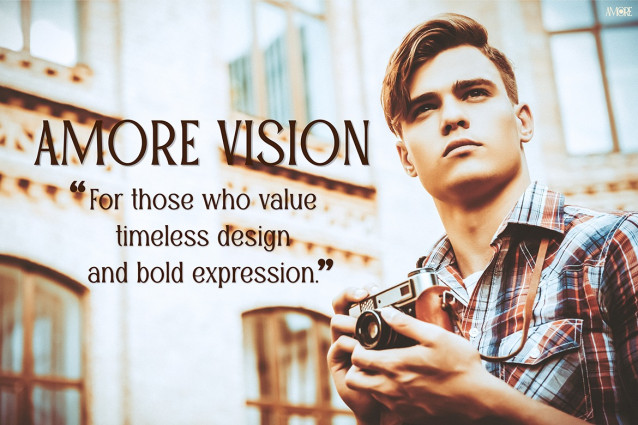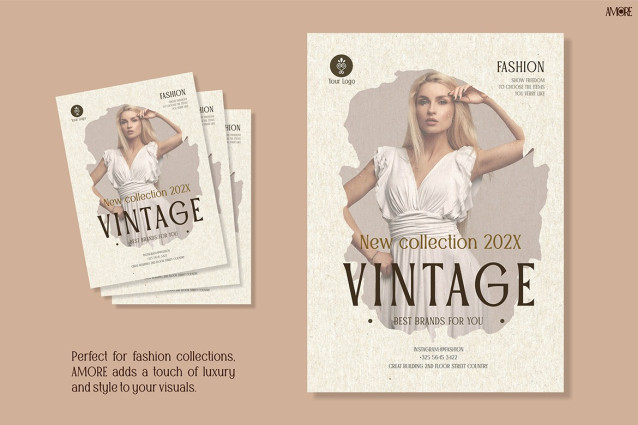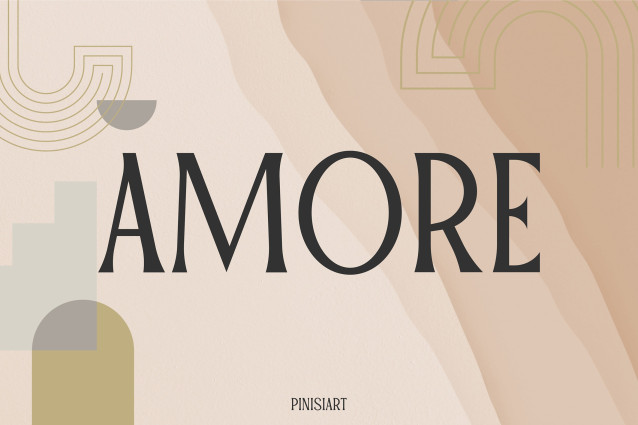
AMORE Font
Instagram Font Amore is a stunning serif typeface designed to captivate attention and exude sophistication. Its timeless elegance combines modern design with classic appeal. The font is perfect for creating eye-catching visuals that make an impression. Each letter is carefully crafted with clean lines and a bold yet refined style. As a result, your text will stand out in any setting. Whether you’re curating an Instagram feed or designing branding materials, Instagram Font Amore elevates your work.
This font is known for its high contrast between thick and thin strokes. These elements give it a luxurious and polished look. Its graceful curves and distinctive character shapes radiate charm and creativity. Additionally, the font works well for fashion, lifestyle, and artistic projects. It is versatile enough to be used in headlines, logos, or body text. Despite its elegant style, it maintains excellent readability. For any designer looking to make a bold impression, this font is an essential choice.